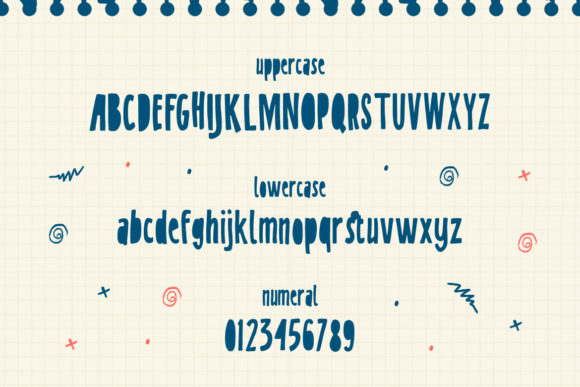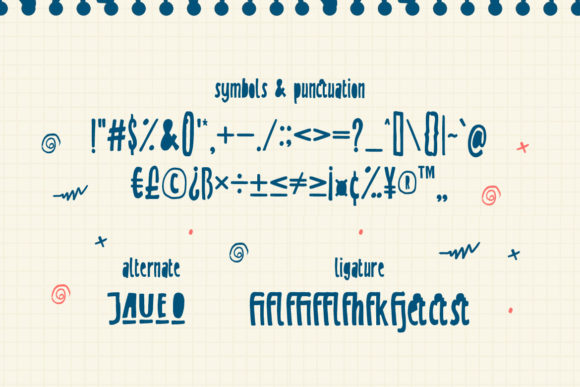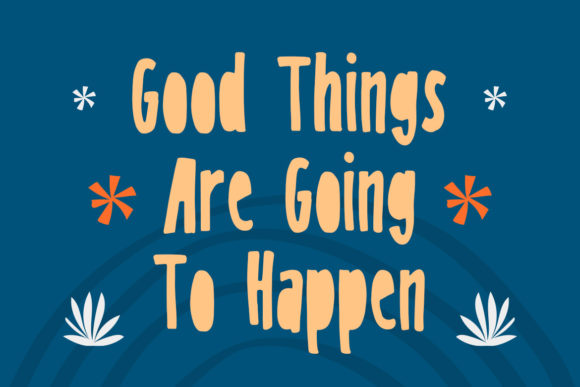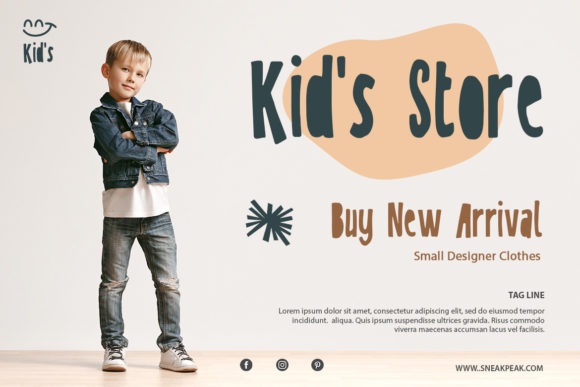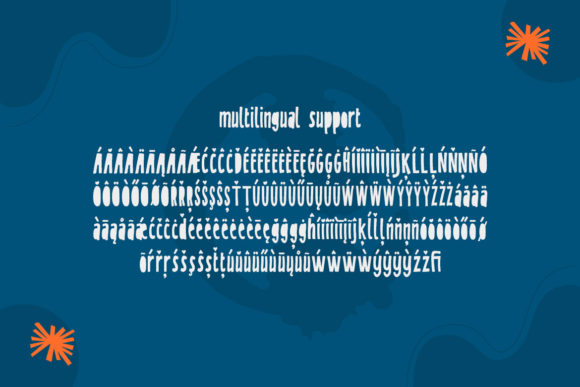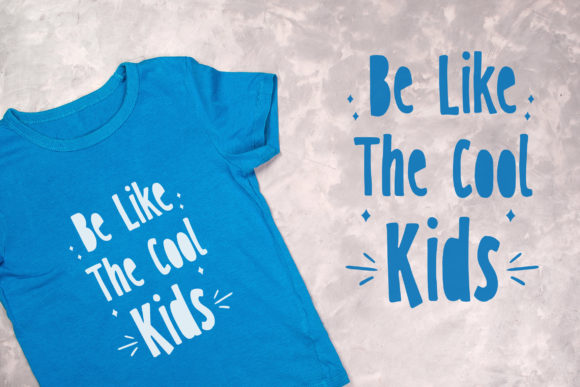
Introduction to Sneak Peak Font
Sneak Peak is a fun and adorable kids display font, carefully handcrafted to become a true favorite.
This font will look outstanding in any context, whether itโs being used on busy backgrounds or as a standalone headline .